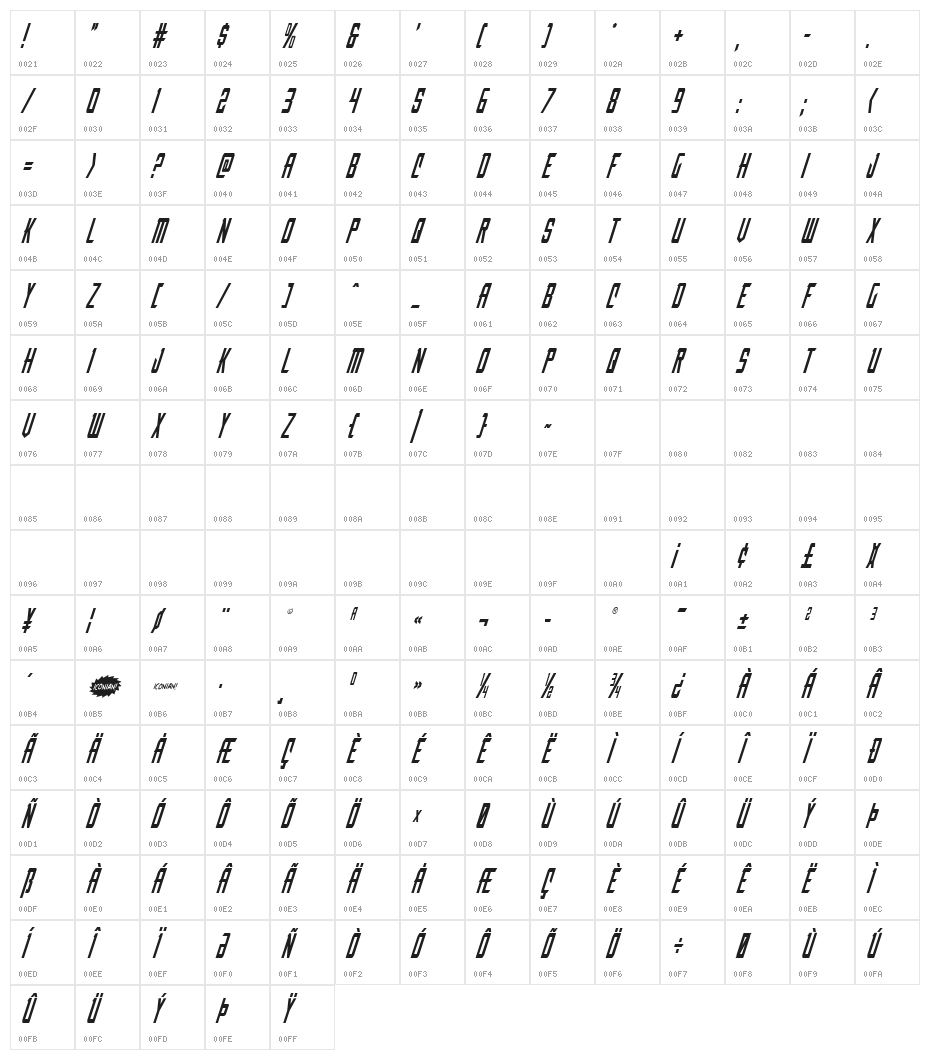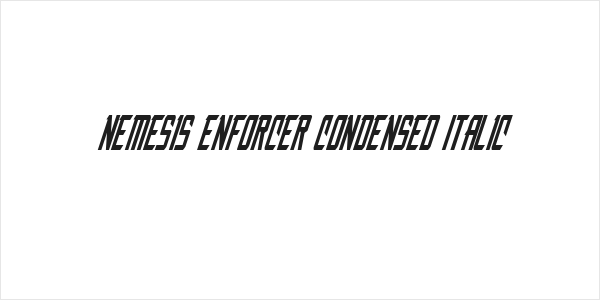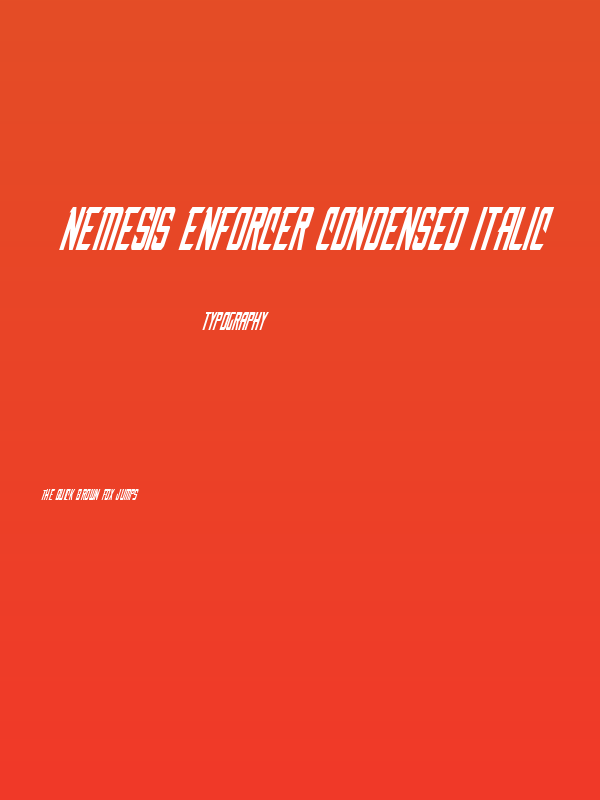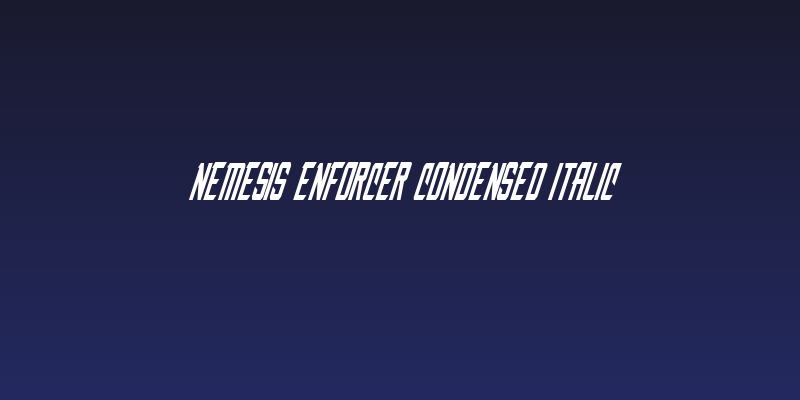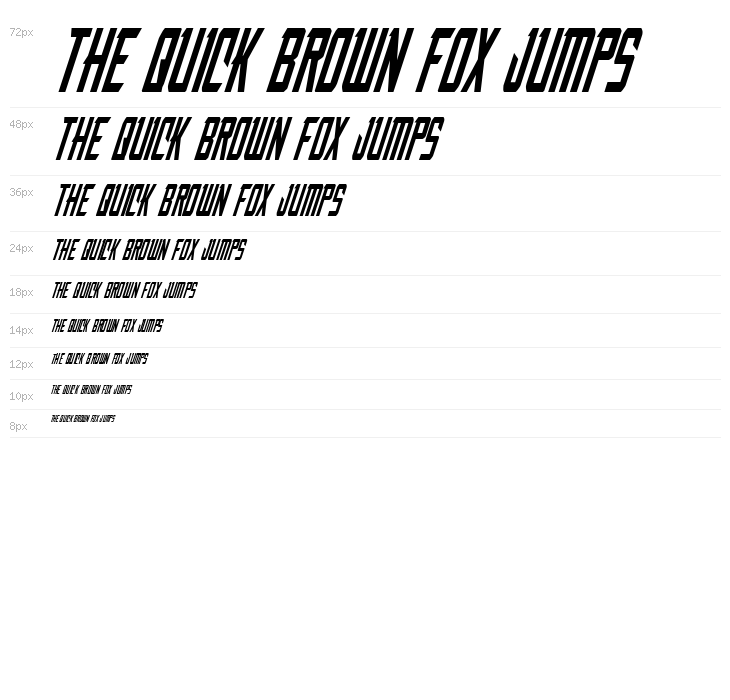
Nemesis Enforcer Condensed Italic Font
Nemesis Enforcer Condensed Italic Description
This font exhibits a bold and dynamic style with a distinct italic slant, giving it a sense of motion and urgency. The characters are condensed, which enhances its compact and efficient appearance. The angular and sharp edges contribute to a futuristic and aggressive look, making it stand out in any design. The uppercase and lowercase letters maintain a consistent style, and the numerals are equally bold and impactful. Special characters are designed to match the overall aesthetic, ensuring uniformity across all text elements.